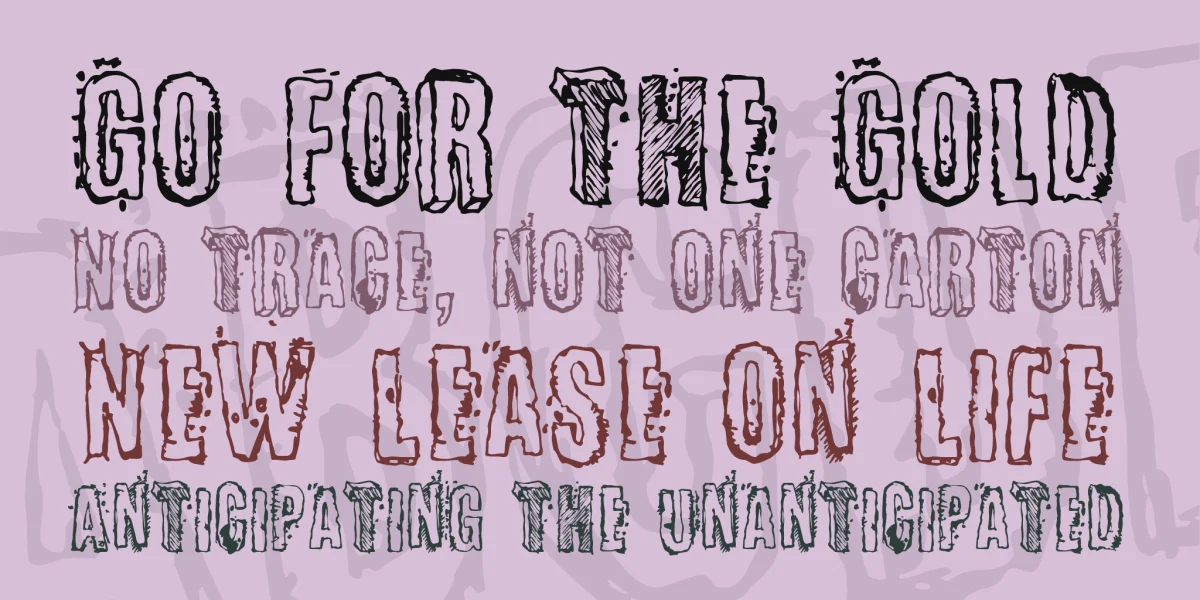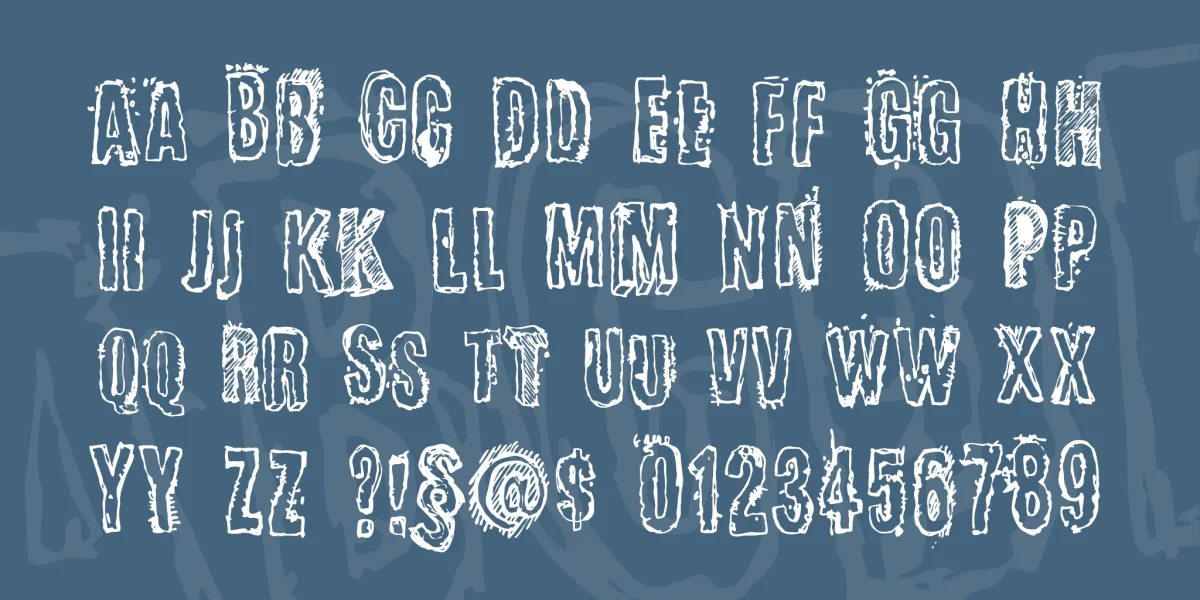
»Certto Headline« is totally free font, enjoy it in your work. It is an informal grunge font, available for free download and use. Download of this grunge font for your collection. With this dirty, distressed and grungy font you can create a superb grunge design. This font was made to be used in pop art and artistic projects that involve action and emotion. Inspired by B-Movie Posters and by Visualism of the 1930´s Universal Horror Movies.